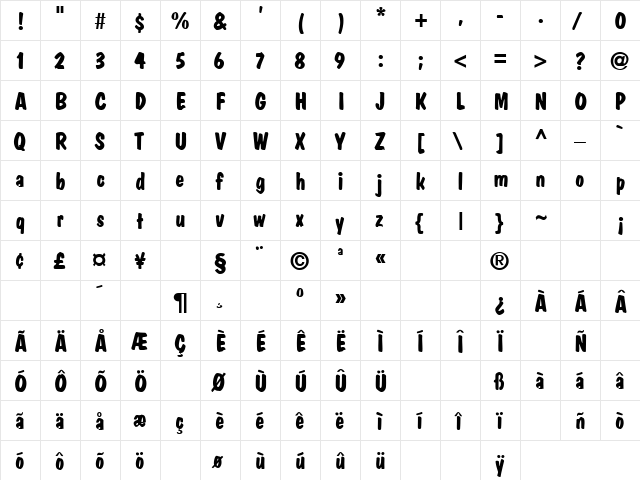
Chills 4 Regular
Design Context for Chills 4 Typeface
Chills 4 takes a measured approach to typography — its balanced proportions and neutral character make it a reliable workhorse for both digital and print work.